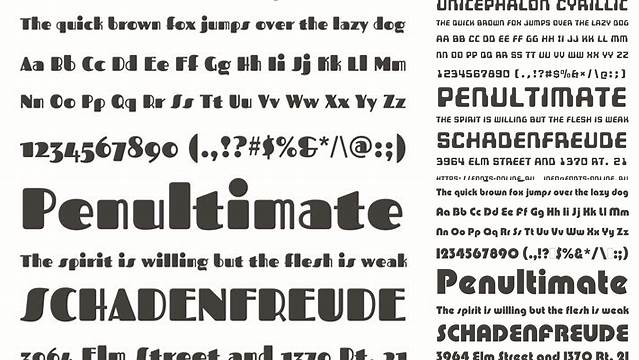
Cyrillic Fonts Online: A Comprehensive Guide
Hey guys! Ever wondered about the magic behind those elegant, flowing Cyrillic letters you see online? Well, you're in the right place! This guide is your one-stop shop for everything related to Cyrillic fonts online, from finding the perfect font for your project to understanding the nuances of this beautiful script. We'll dive deep into where to find them, how to use them, and even touch on some cool design tips to make your text pop. Let's get started, shall we?
Why Use Cyrillic Fonts?
Alright, let's talk about why you'd even want to use Cyrillic fonts, yeah? Think of it like this: fonts are the voice of your text. They set the tone, the mood, and the overall vibe. Cyrillic fonts, used to write languages like Russian, Ukrainian, Bulgarian, and Serbian, bring a unique character to your designs. They can add a touch of sophistication, a hint of cultural flair, or even a sense of mystery, depending on the font you choose. Cyrillic fonts can be a super effective way to stand out from the crowd, especially if you're working on a project that needs a fresh, original look. It's not just about the letters themselves; it's about the overall visual impact. When you choose a Cyrillic font, you're making a statement. You're saying, "Hey, I'm different! I'm creative!" And who doesn't want to be perceived that way? Plus, the Cyrillic alphabet itself has a certain beauty to it, with its graceful curves and bold strokes. Using these fonts can make your text instantly more interesting and engaging. Imagine a website with a bland, generic font versus one with a stylish, well-chosen Cyrillic font. Which one would you be more likely to stick around and explore? Exactly! That's the power of typography, and Cyrillic fonts are a fantastic tool in your arsenal. Trust me, it's a game-changer in the design world. They're great for branding, social media posts, website headings, and even print materials. They're a secret weapon for grabbing attention and leaving a lasting impression. So, if you're looking to add some serious style and personality to your projects, Cyrillic fonts are definitely worth exploring. You might be surprised at how much they can elevate your work. They can give your designs a distinctive edge that helps you cut through the noise and connect with your audience on a deeper level. From sleek and modern to classic and elegant, there's a Cyrillic font out there for every project. Whether you're a seasoned designer or just starting out, incorporating these fonts into your work is a smart move.
Where to Find Cyrillic Fonts Online
Okay, so you're sold on the idea of using Cyrillic fonts. Awesome! But where do you actually find these fonts online? Don't worry, I've got you covered, my friends. There are tons of websites out there that offer a wide variety of Cyrillic fonts, both free and paid. Here are some of the best places to start your search:
- Google Fonts: Google Fonts is a total goldmine for free fonts, and it has a great selection of Cyrillic fonts. It's super easy to browse, download, and use the fonts in your projects. Plus, Google Fonts is known for its quality and reliability, so you know you're getting good stuff. You can filter your search by script to quickly find the Cyrillic fonts. Some popular Cyrillic fonts available on Google Fonts include Roboto, Open Sans, and PT Sans. These are great options for body text and headings.
- DaFont: DaFont is another fantastic resource for free fonts. They have a huge library, and you can easily filter by language to find Cyrillic fonts. Just be aware that some of the fonts on DaFont might not be as polished as those on Google Fonts, so be sure to check the quality before you use them. Check for any licensing restrictions before downloading, too. DaFont offers a diverse range, from decorative fonts to more functional ones. So, there's a ton of options to explore.
- Font Squirrel: Font Squirrel is a website that focuses on high-quality, free fonts. They have a curated collection, which means the fonts are usually well-designed and optimized for various uses. You can find some amazing Cyrillic fonts here as well. Font Squirrel also offers a font identifier tool, so you can upload an image of a font you like and they'll try to find it for you. That is a cool feature.
- MyFonts: MyFonts is a premium font marketplace, so you'll find both free and paid Cyrillic fonts here. The selection is vast, and the quality is generally very high. MyFonts is a great option if you're looking for unique or professional-grade fonts. They also have a font identifier tool, similar to Font Squirrel's, that's super helpful for identifying fonts from images.
- Creative Market: Creative Market is another popular marketplace for designers, and it offers a wide variety of Cyrillic fonts, often created by independent designers. You can find some really unique and creative fonts here. Creative Market is a great option for supporting independent artists while finding high-quality fonts. Creative Market offers some of the most visually interesting fonts you'll find anywhere, with an emphasis on design-forward aesthetics. It's like a treasure trove for typography lovers.
When you're browsing for Cyrillic fonts online, be sure to check the licensing details. Some fonts are free for personal use but require a commercial license for commercial projects. Others may be free to use for any purpose. Pay attention to these details to avoid any legal issues down the line. Also, consider the font's readability, especially if you're using it for body text. Make sure the letters are easy to distinguish and that the font looks good at different sizes. And, of course, have fun exploring the options! There's a whole world of Cyrillic typography out there waiting to be discovered.
How to Use Cyrillic Fonts in Your Designs
Alright, so you've found some cool Cyrillic fonts and you're ready to start using them. That's fantastic! But how do you actually do it? Let's break down the process, shall we? Using Cyrillic fonts is pretty similar to using any other font, but here are a few tips to make sure you get the most out of them:
- Design Software: Once the font is installed, you can use it in your design software, like Adobe Photoshop, Illustrator, or Canva. Simply select the text tool, choose your Cyrillic font from the font menu, and start typing. You'll see the Cyrillic characters magically appear on your screen.
Conclusion: Unleash the Power of Cyrillic Fonts
So there you have it, folks! Everything you need to know about Cyrillic fonts online! From finding the perfect font to using it in your designs, you're now equipped with the knowledge to create some seriously stylish and eye-catching visuals. Cyrillic fonts open a world of creative possibilities. By using these fonts, you can add cultural flair, and make your designs stand out. Now go forth and create! And remember, the most important thing is to have fun and let your creativity shine! Happy designing, everyone!